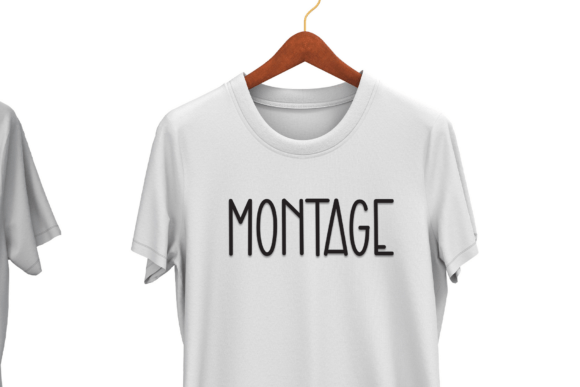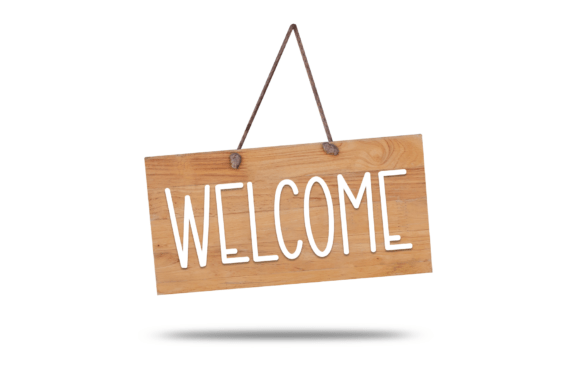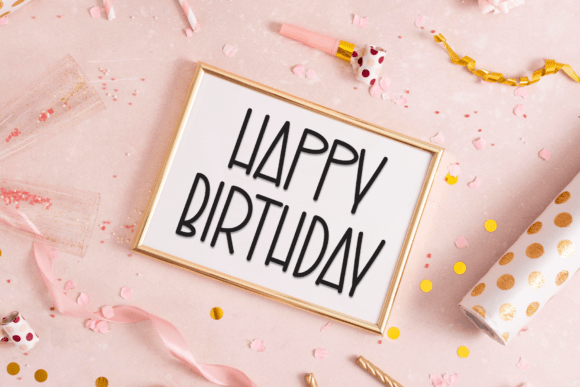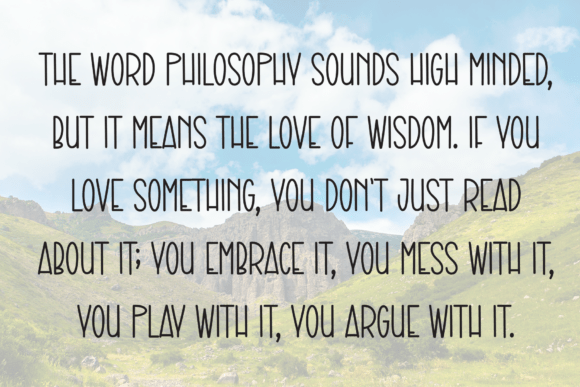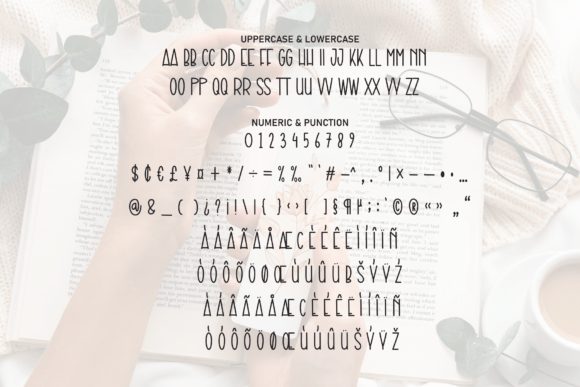
The Digital Bookmark Font: A Fresh and Friendly Addition to Your Design Toolkit
I’ll never forget the time I was working on a branding project for a new coffee shop, and I just couldn’t find the right font to capture their relaxed, yet stylish vibe. The client wanted something modern, yet approachable, and I was determined to deliver. That’s when I stumbled upon the Digital Bookmark font, and it instantly became the perfect fit. In this article, I’ll share my experience with this amazing font, its features, and how to make the most of it in your designs.
An Honest Review of Digital Bookmark
So, what makes Digital Bookmark so special? Let’s dive into the good stuff and a few quirks I’ve discovered.
- ✨ Clean and Modern Design: Digital Bookmark boasts clean shapes, soft edges, and well-balanced letterforms that give it a fresh and friendly feel.
- ✅ Versatility: This font is perfect for a wide range of design projects, from posters and branding to packaging and social media graphics.
- 💡 Readability and Personality: It strikes an excellent balance between being easy to read and having a unique personality that sets it apart from more generic fonts.
While Digital Bookmark is an excellent font, there are a few things to keep in mind:
- ⚠️ Limited Formality: Given its casual nature, it might not be the best choice for very formal or traditional projects.
- 🤔 Overuse of Stylistic Alternates: With great power comes great responsibility! Using too many stylistic alternates or OpenType features can sometimes make the text harder to read.
The Story Behind Digital Bookmark
While the origins of Digital Bookmark might not be well-documented, it’s clear that the designers aimed to create a font that embodies the spirit of modern digital communication: friendly, approachable, and effortlessly cool. The result is a font that feels at home in both digital and print media, offering a versatile solution for designers.
Q: Is Digital Bookmark suitable for body text?
A: While Digital Bookmark is primarily designed as a display font, its readability makes it suitable for short to medium-length body text. However, for very long texts, a serif font might be more appropriate.
Q: Does Digital Bookmark support OpenType features?
A: Yes, Digital Bookmark supports OpenType features, including stylistic alternates and ligatures, which can be accessed in compatible software like Adobe Illustrator and Photoshop.
Digital Bookmark is a versatile and stylish font that can add a fresh and friendly touch to any design project. With its clean design, readability, and range of OpenType features, it’s an excellent choice for designers looking to convey a modern yet approachable vibe. Whether you’re working on branding, social media graphics, or packaging, Digital Bookmark is sure to make your designs stand out.